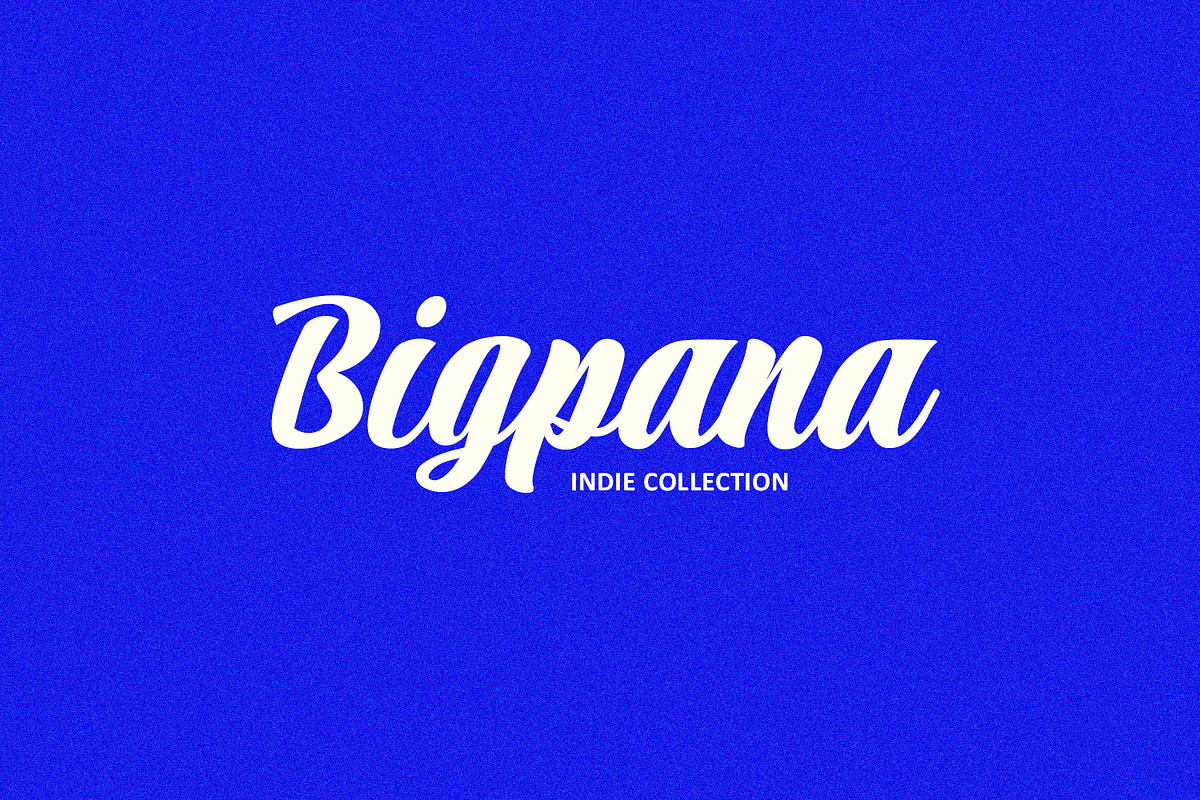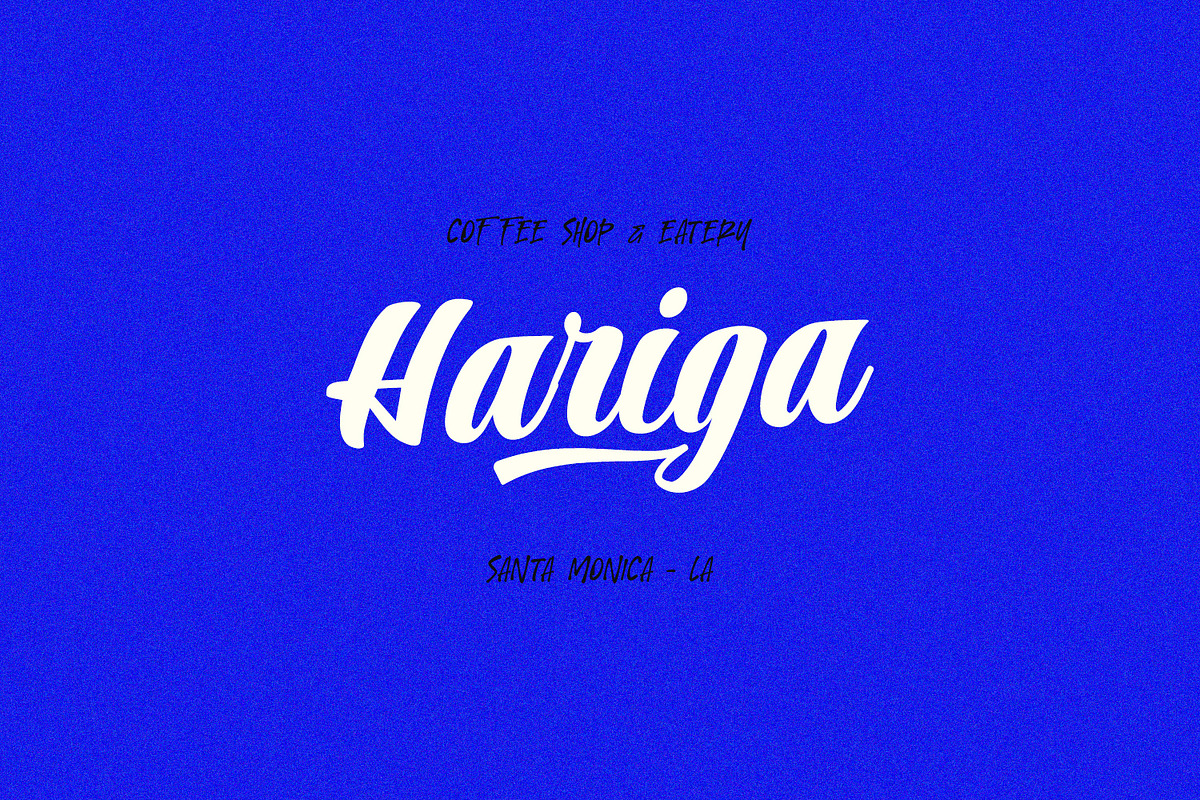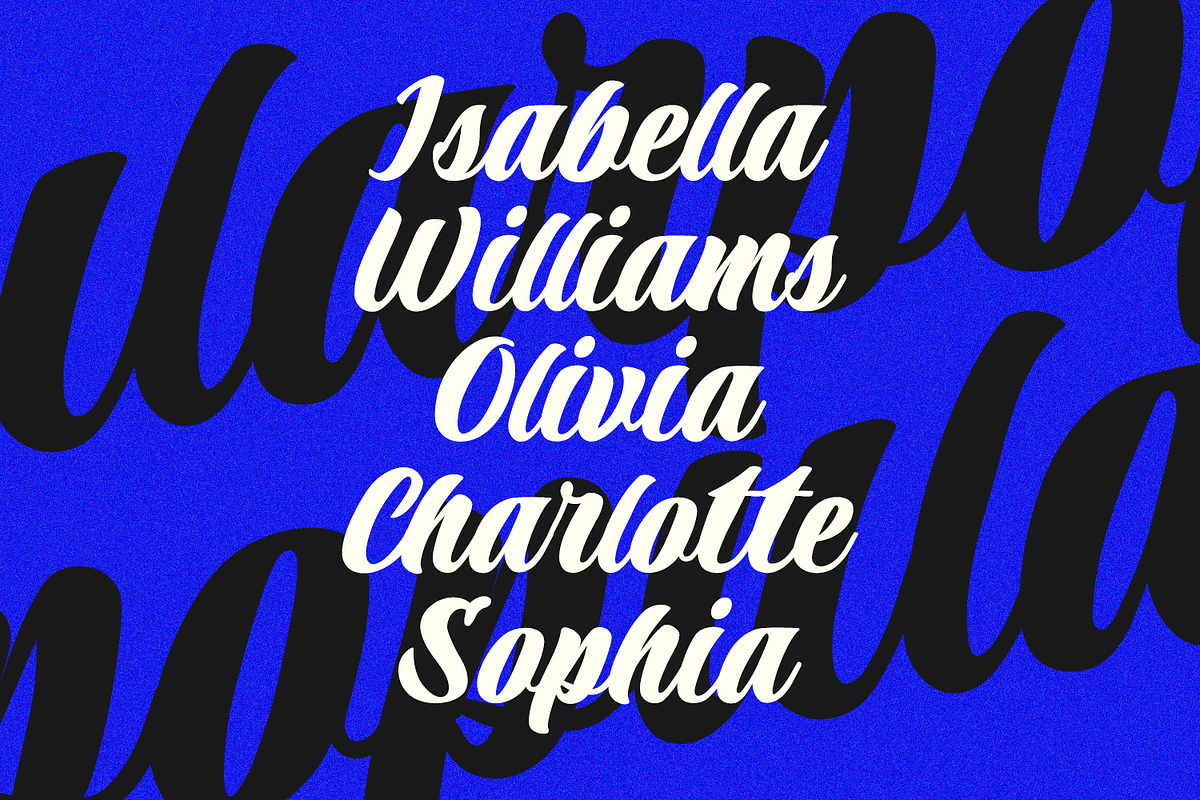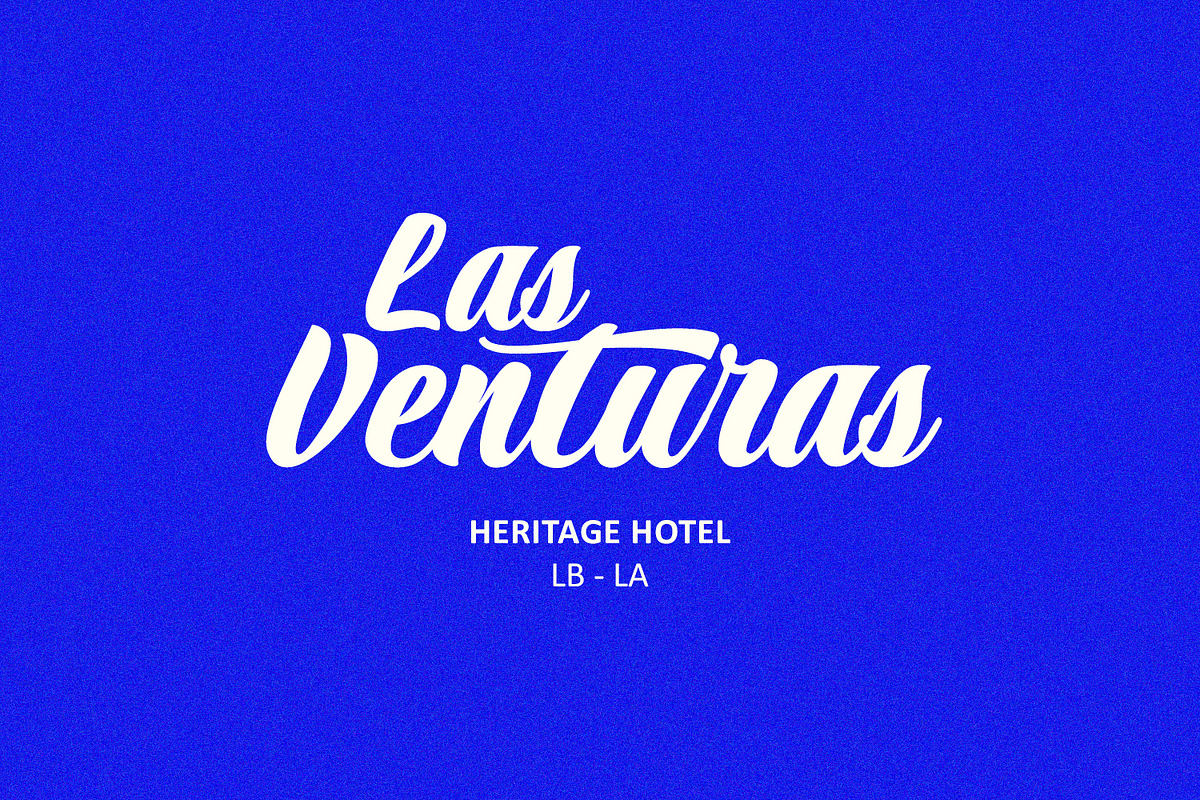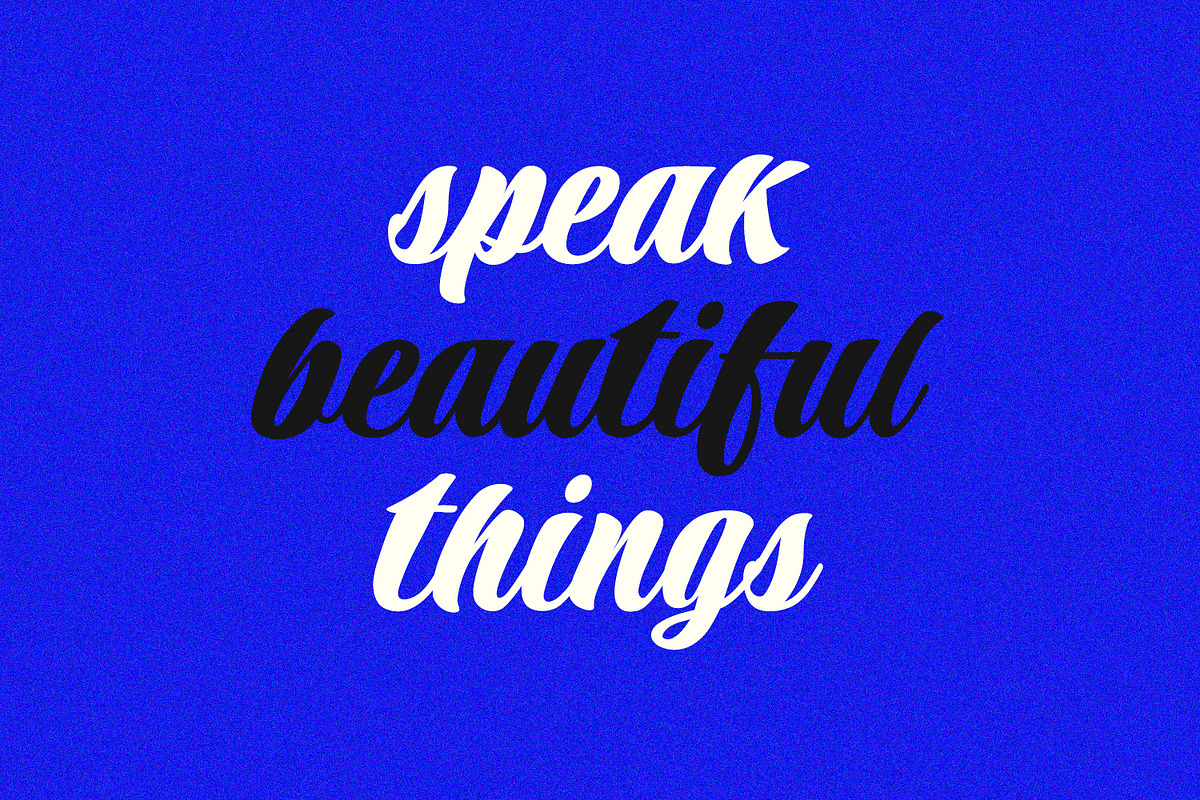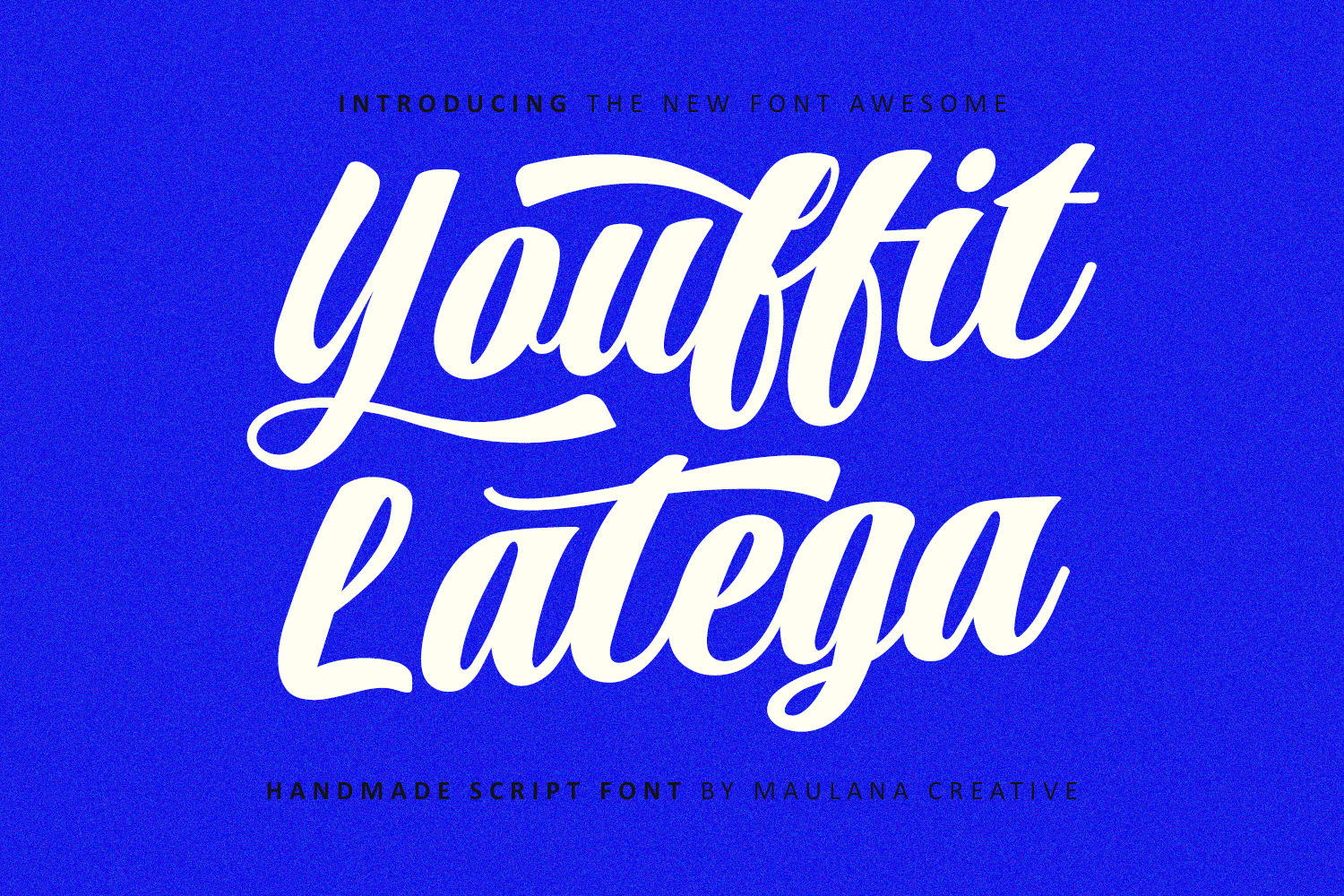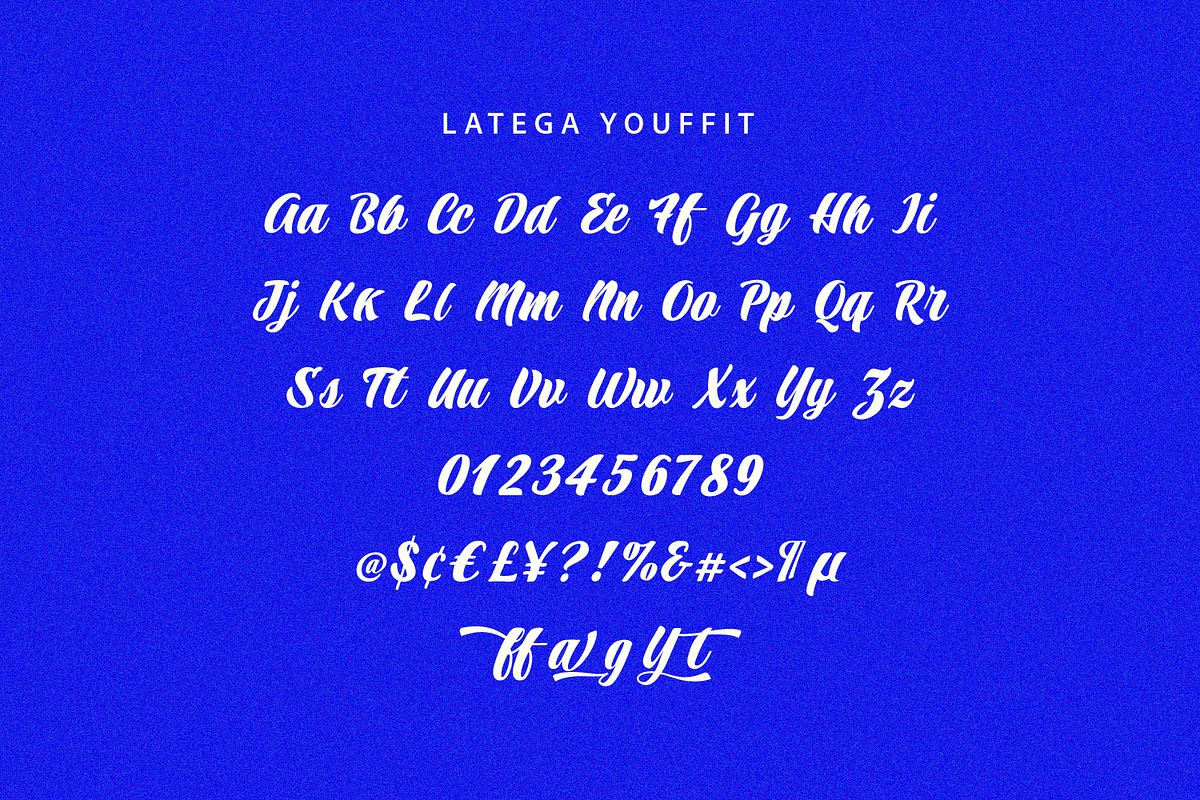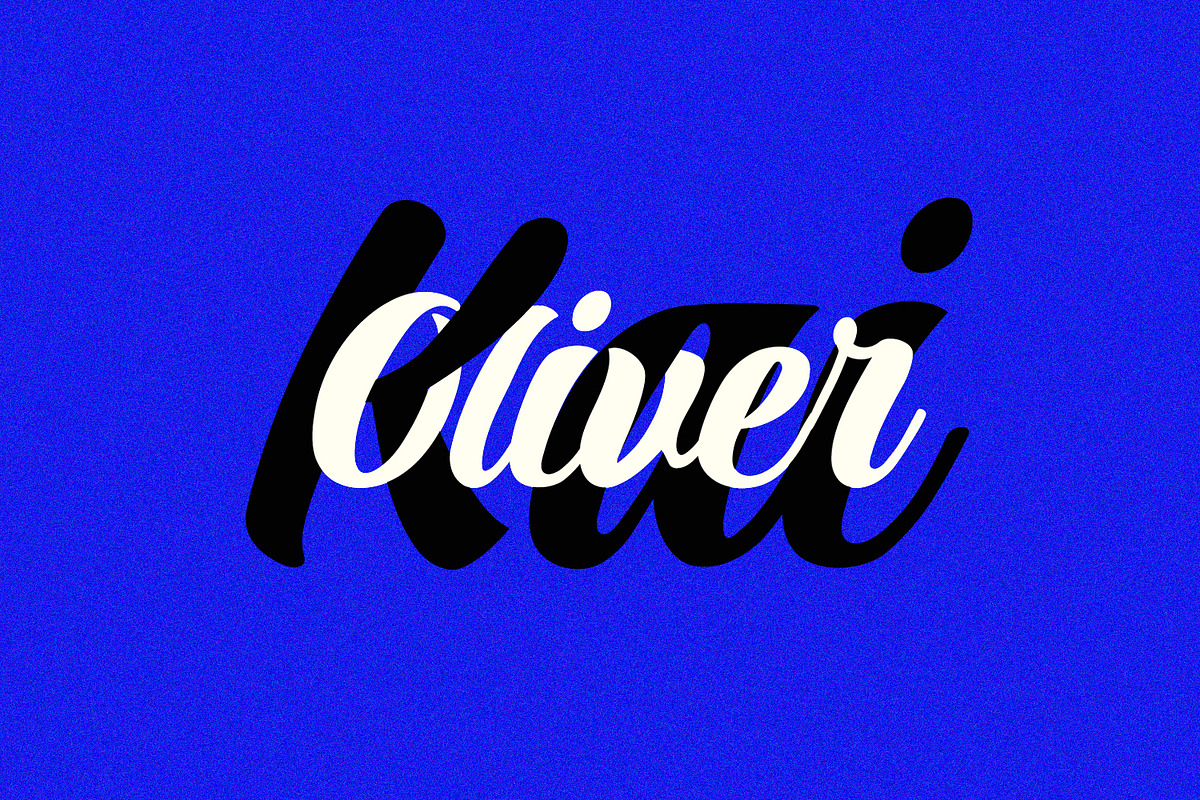
Latega Youffit Handmade Script Font
Latega Youffit is a powerful and energetic handmade script font that perfectly captures the spirit of retro advertising, modern branding, and casual elegance. Its confident, flowing lines and thick strokes make it stand out instantly, while the smooth connections ensure legibility and style.
Whether you're creating a punchy logotype, an eye-catching header for social media, merchandise, or packaging, Latega Youffit adds a dynamic, handcrafted feel that resonates with audiences worldwide. This font is designed to be loud, proud, and undeniably unique.
- Bold & Expressive: Thick, heavy strokes that demand attention.
- Authentic Handmade Feel: Giving your project a genuine, personal touch.
- Versatile Style: Perfect for everything from food and beverage branding to apparel and hotel signage.
- Full Character Set: Includes uppercase, lowercase, numbers, punctuation, and essential symbols.
- Pua Encoded: Easy access to all the gorgeous ligatures and alternates (as shown in the examples) to customize your text flow and design.